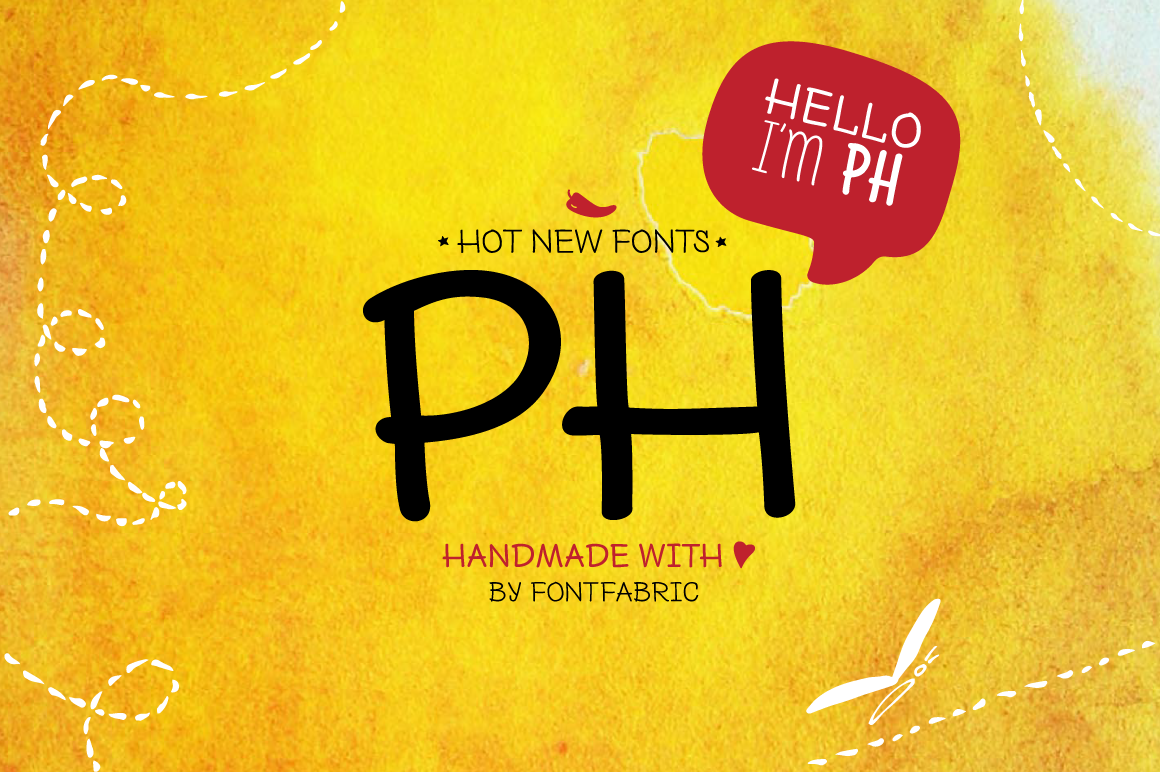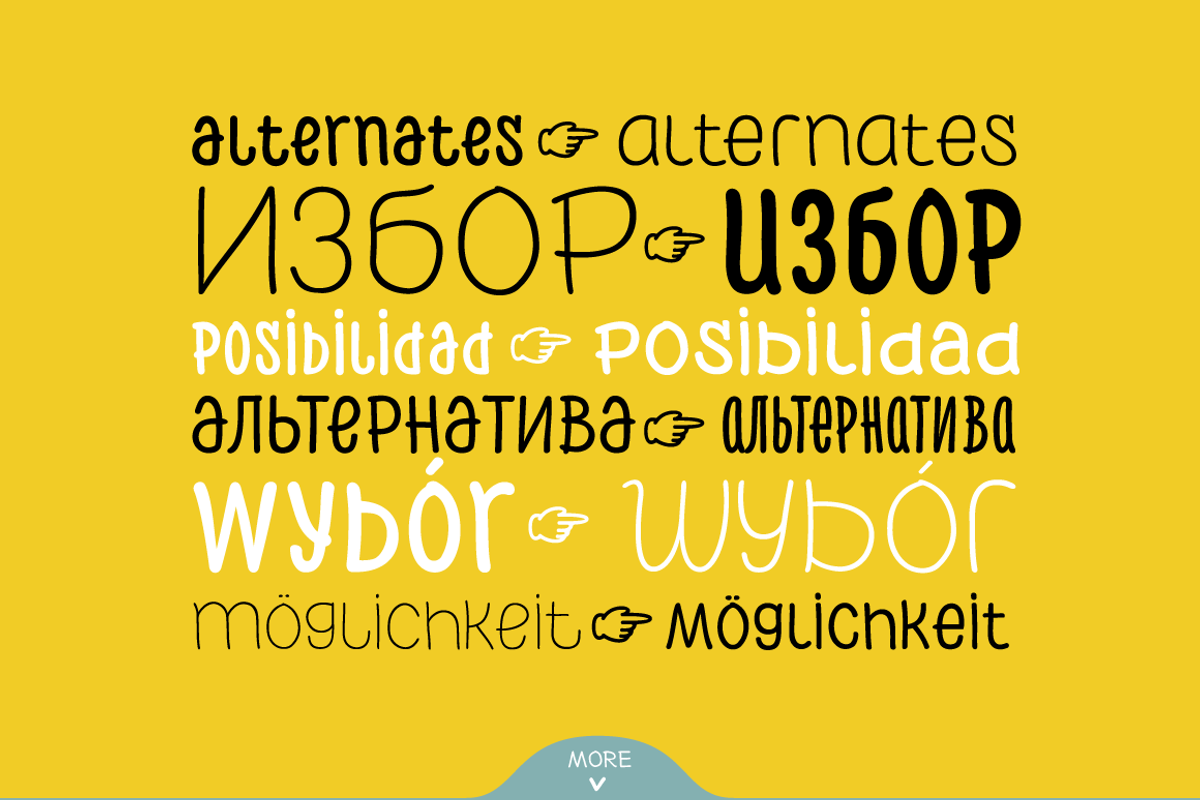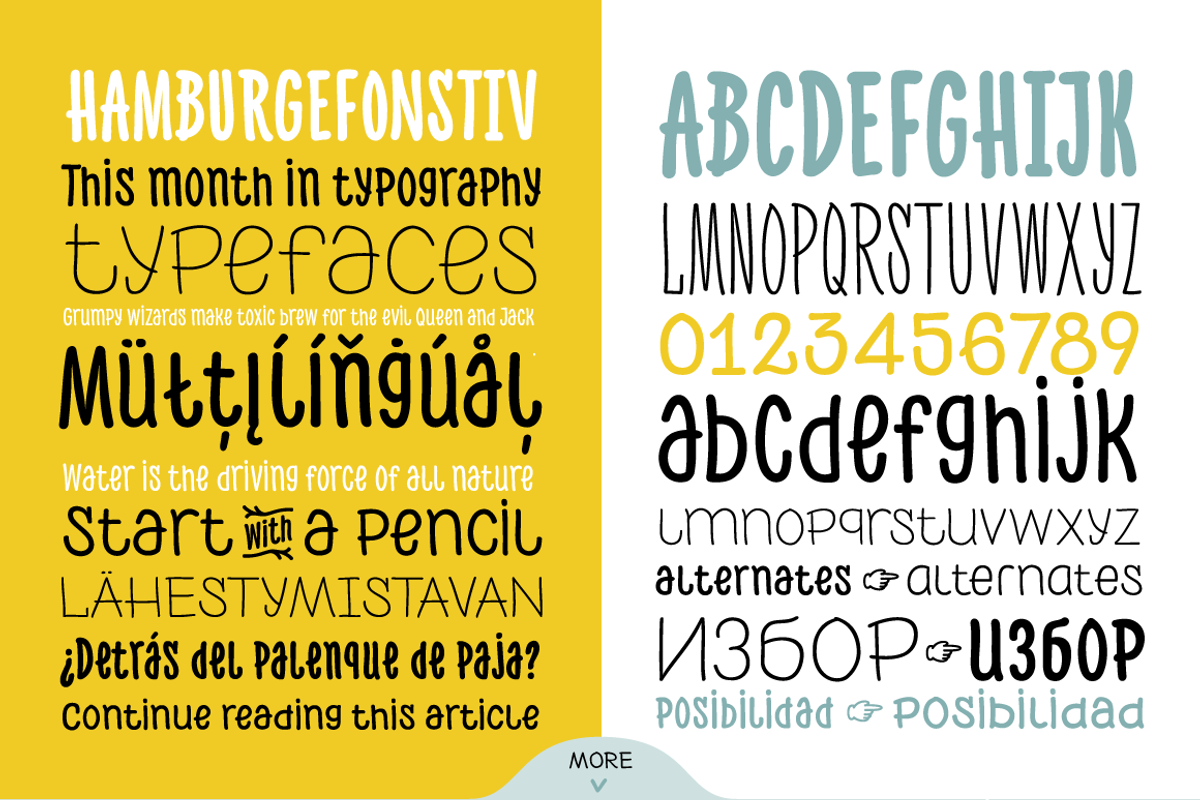
PH - 96 Handmade Fonts
PH from Fontfabric Type Foundry is a multifaceted handmade font system consisting of 96 different font weights and type of condensation.
Every one of these font weights contains a number of extension types - Condensed, Narrow, Regular, Extended and Wide.
Along with all of this, you will also discover added groups of extras which could serve as a foundation or add that extra “cherry on the cake” to each unique design.